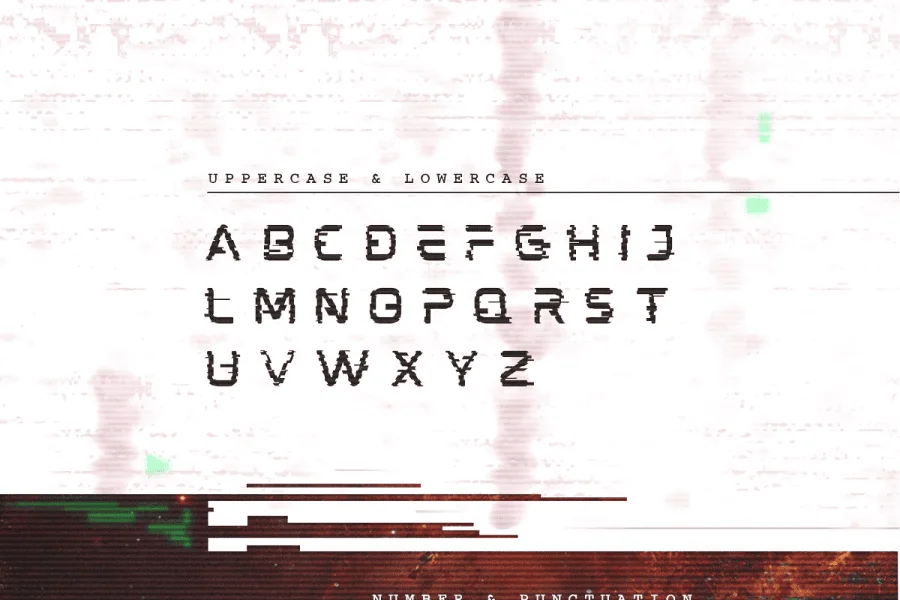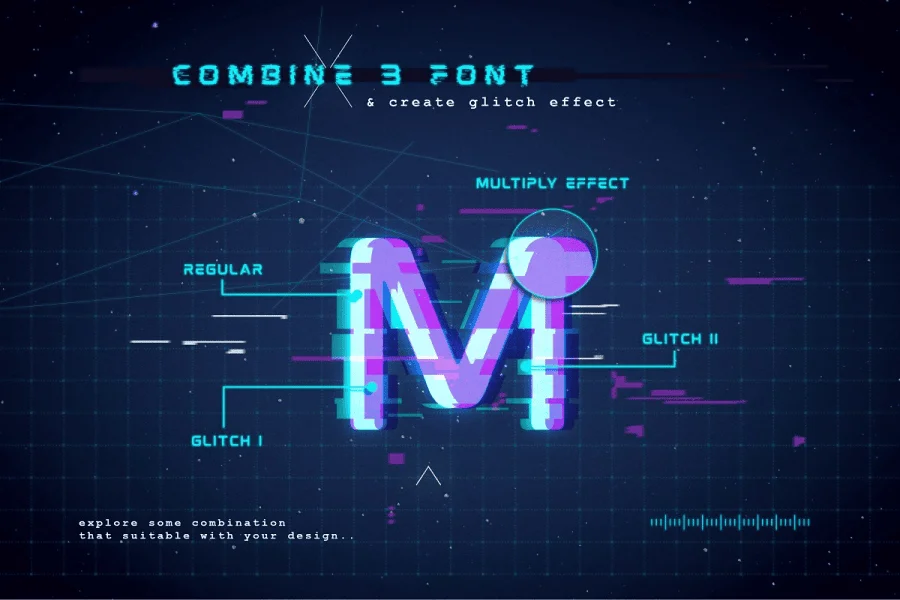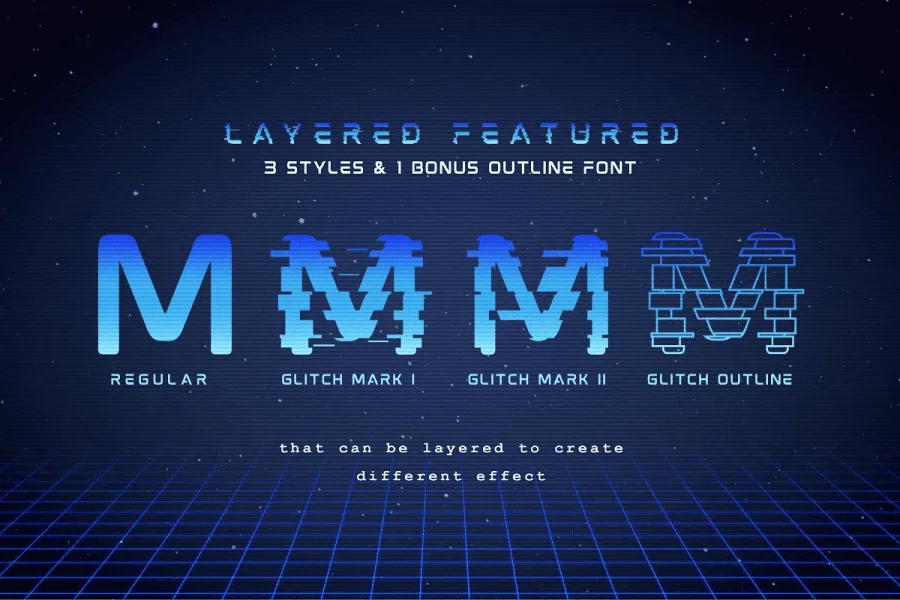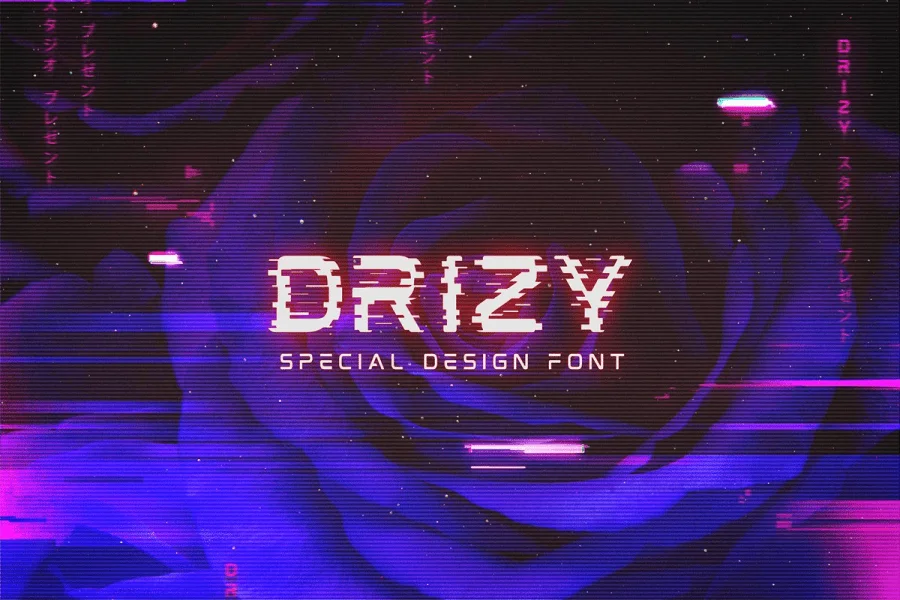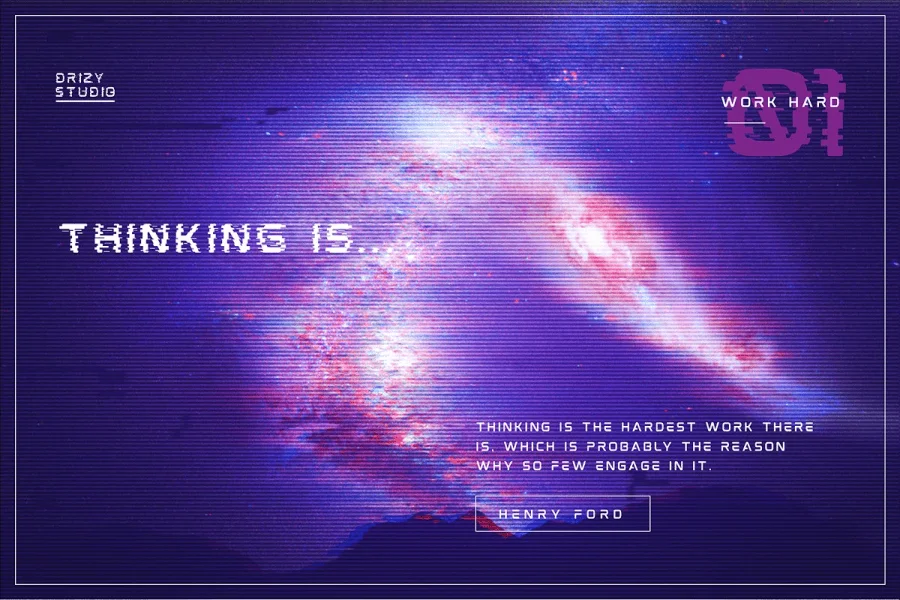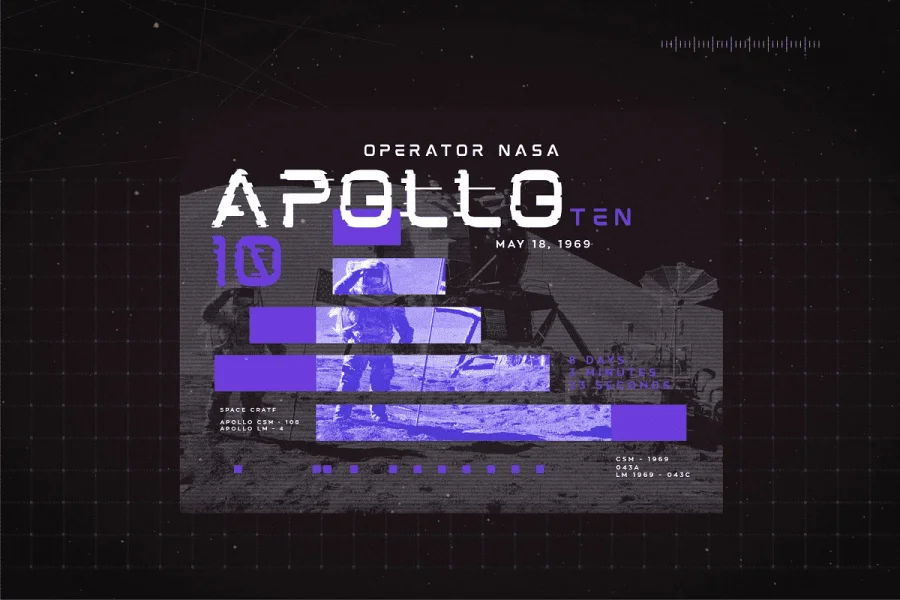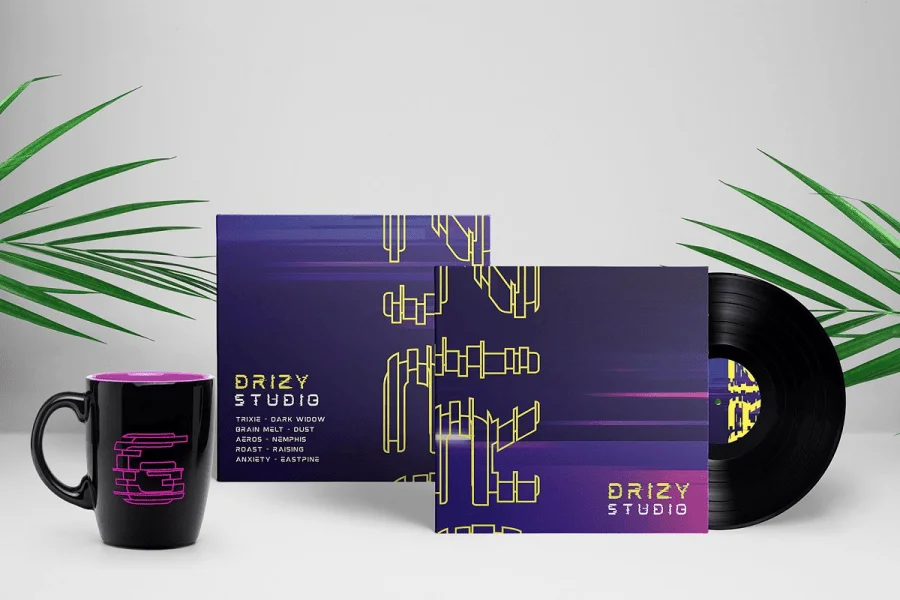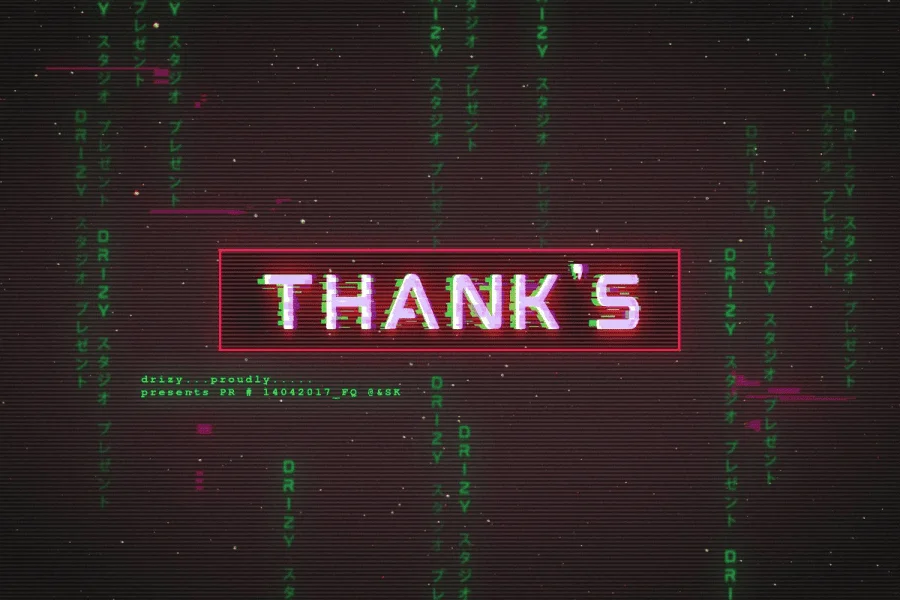
Mokoto is a display sans serif font made by Drizy Studio. a Futuristic and Sci-Fi typeface for your design purpose.
Mokoto is the ideal display or lead font for designs web, print projects, contemporary posters, forward looking motion graphics, video game, cover CD Album, and other items like logos, poster/ flyer, branding, packaging, pictograms, etc.